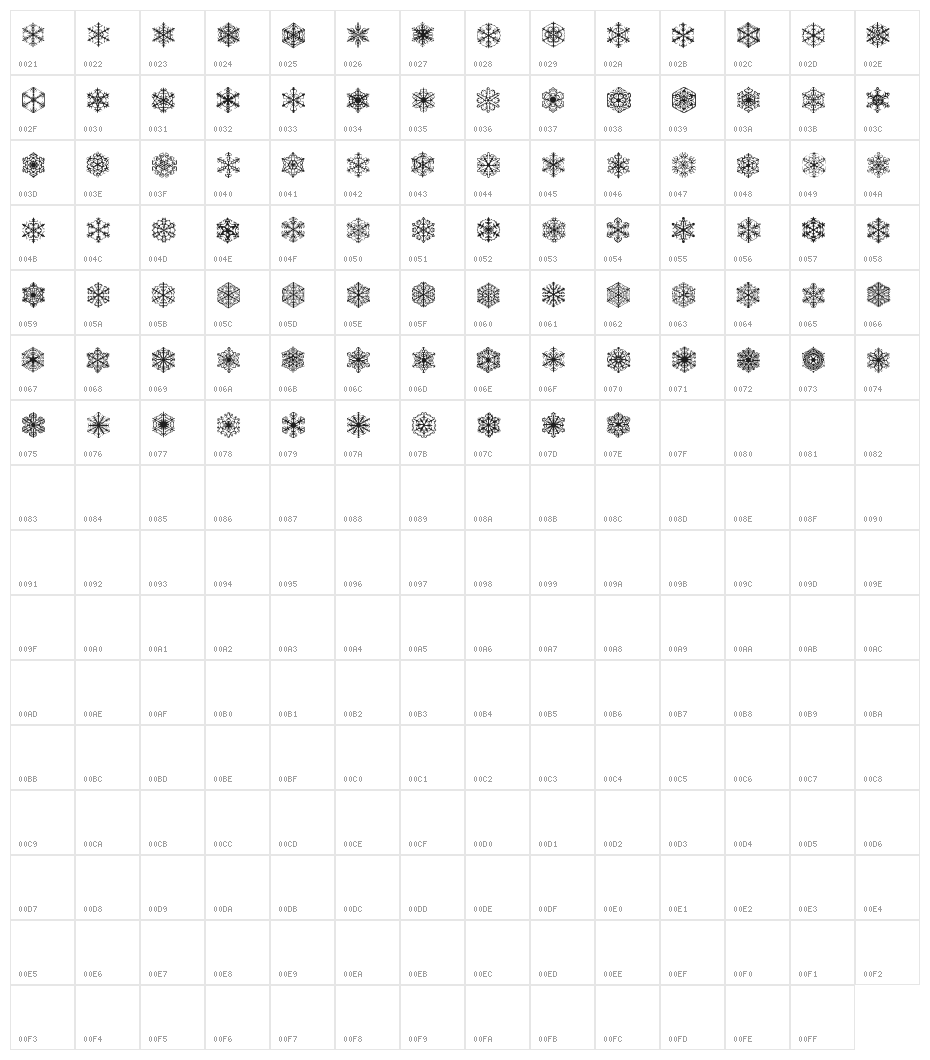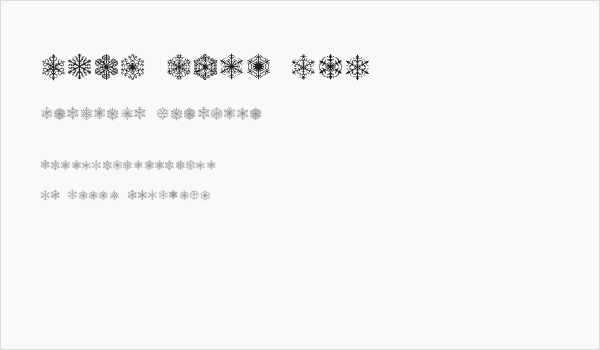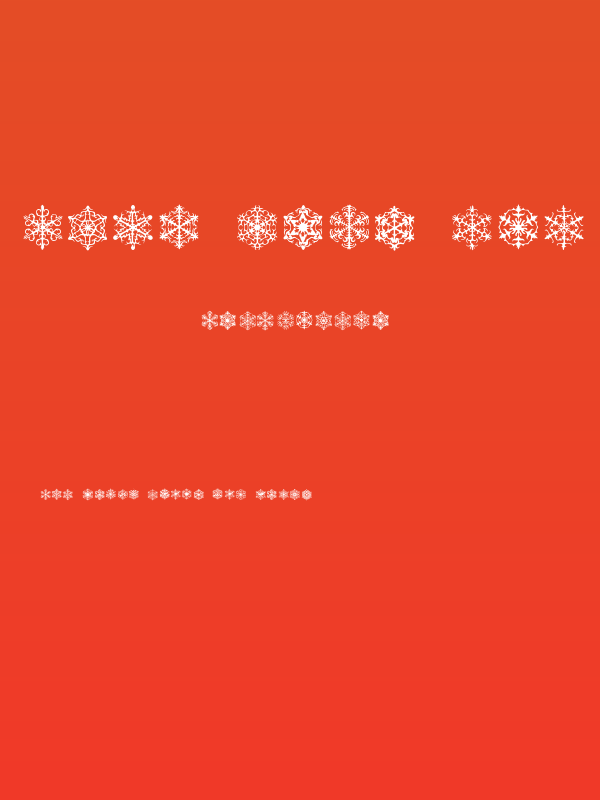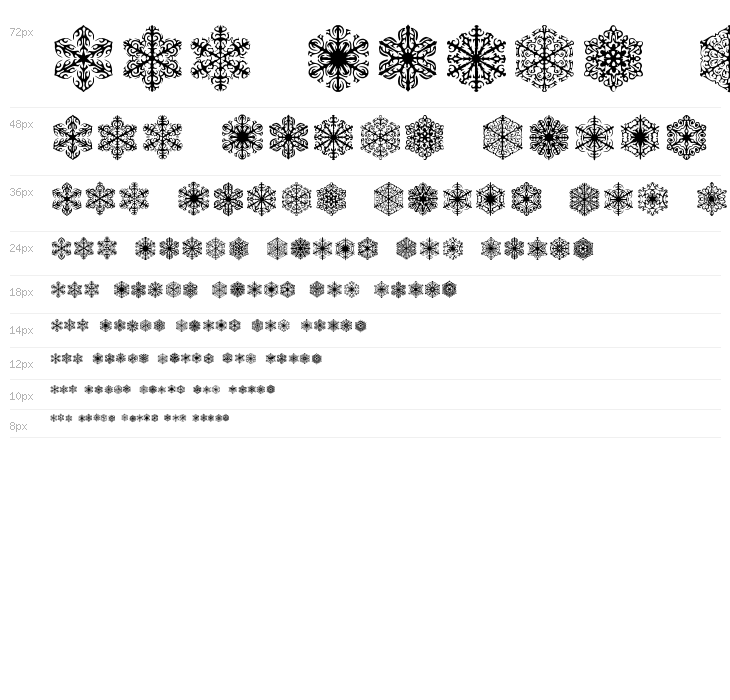
Faux Snow BRK Font
Faux Snow BRK Description
A decorative dingbat set featuring a wide variety of intricate snowflake designs, each glyph representing a unique, highly detailed snowflake with symmetrical and ornate patterns. The style is consistent, with bold outlines and complex internal line work, evoking a festive, wintry feel.
| Overall Style | Decorative, Festive, Ornamental |
| Use Case | Icons, Borders, Decorative elements |
| Proposed Projects | Holiday cards, winter event invitations, seasonal branding, decorative borders, digital scrapbooking, festive packaging. |